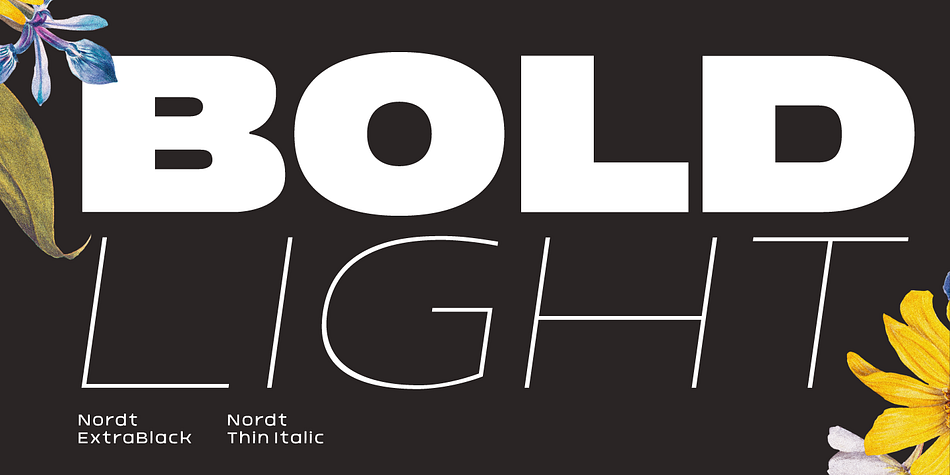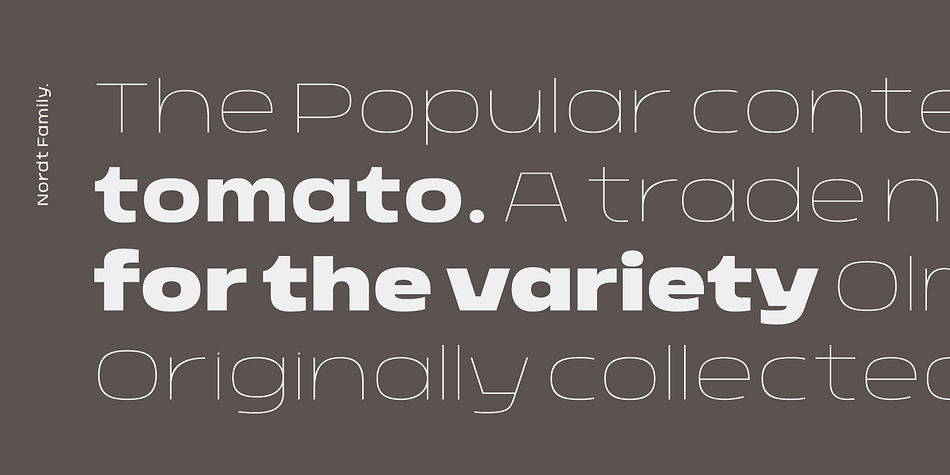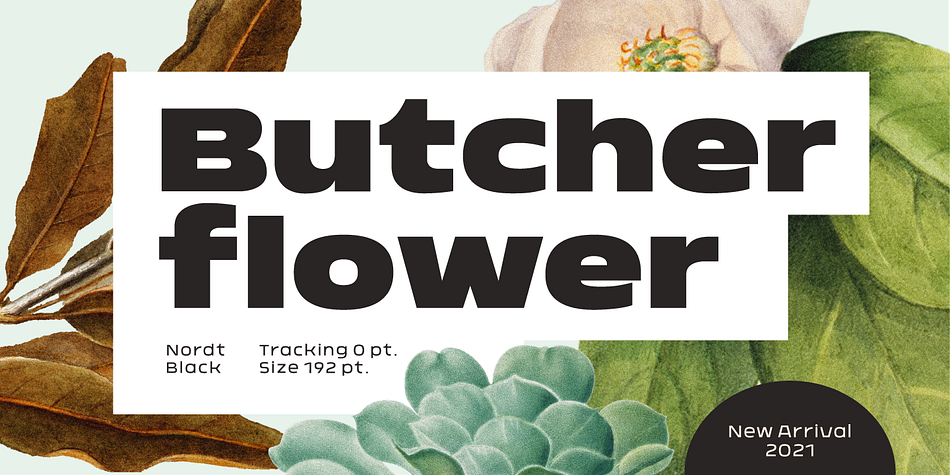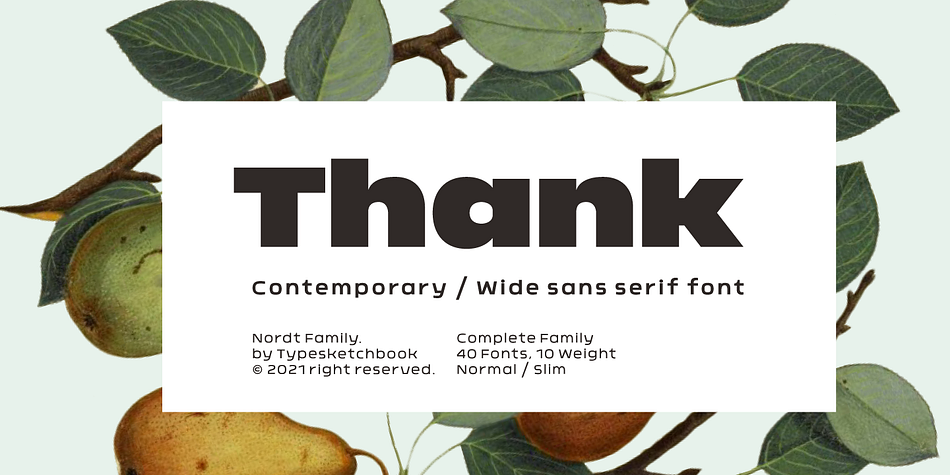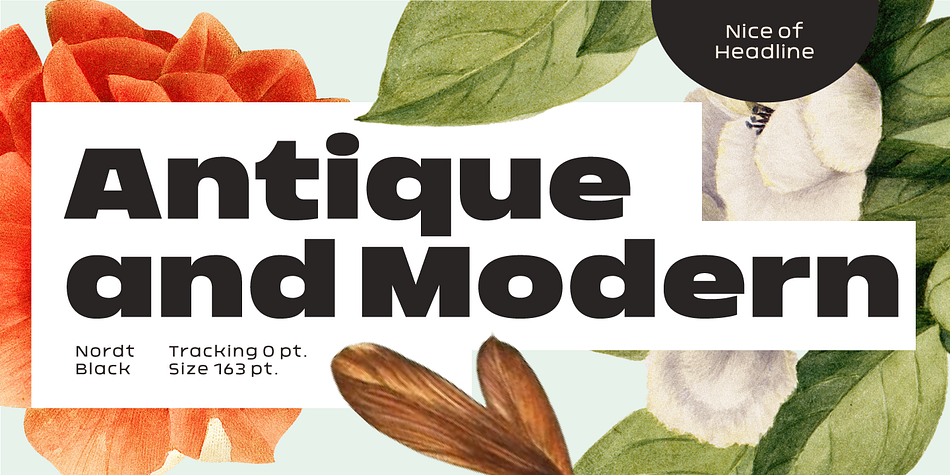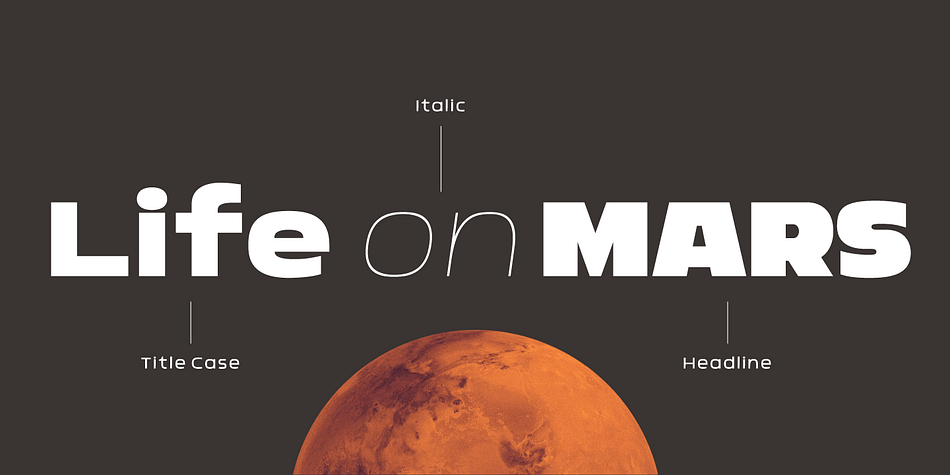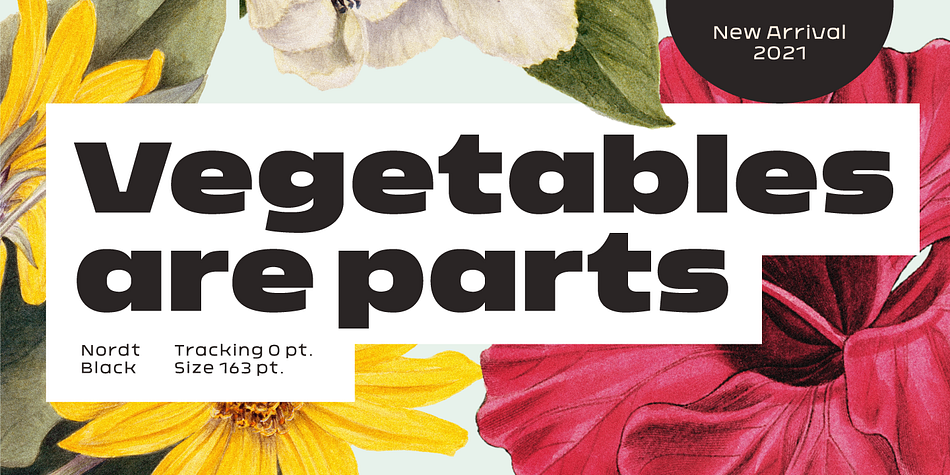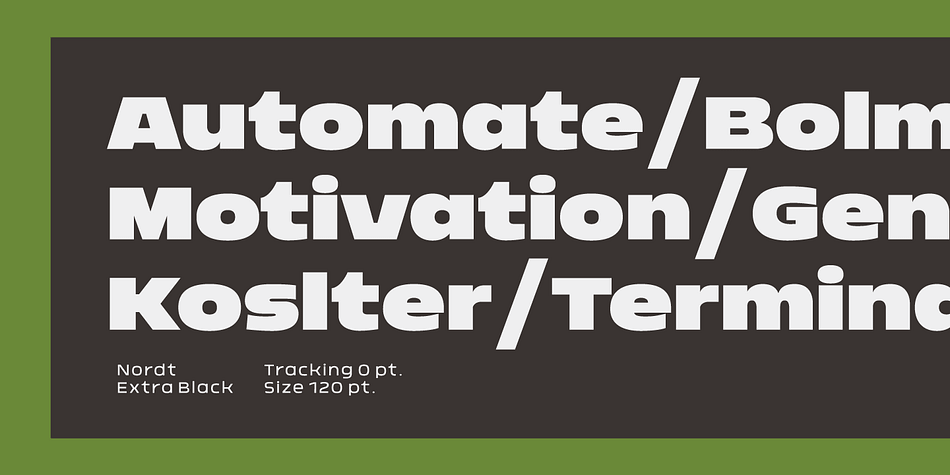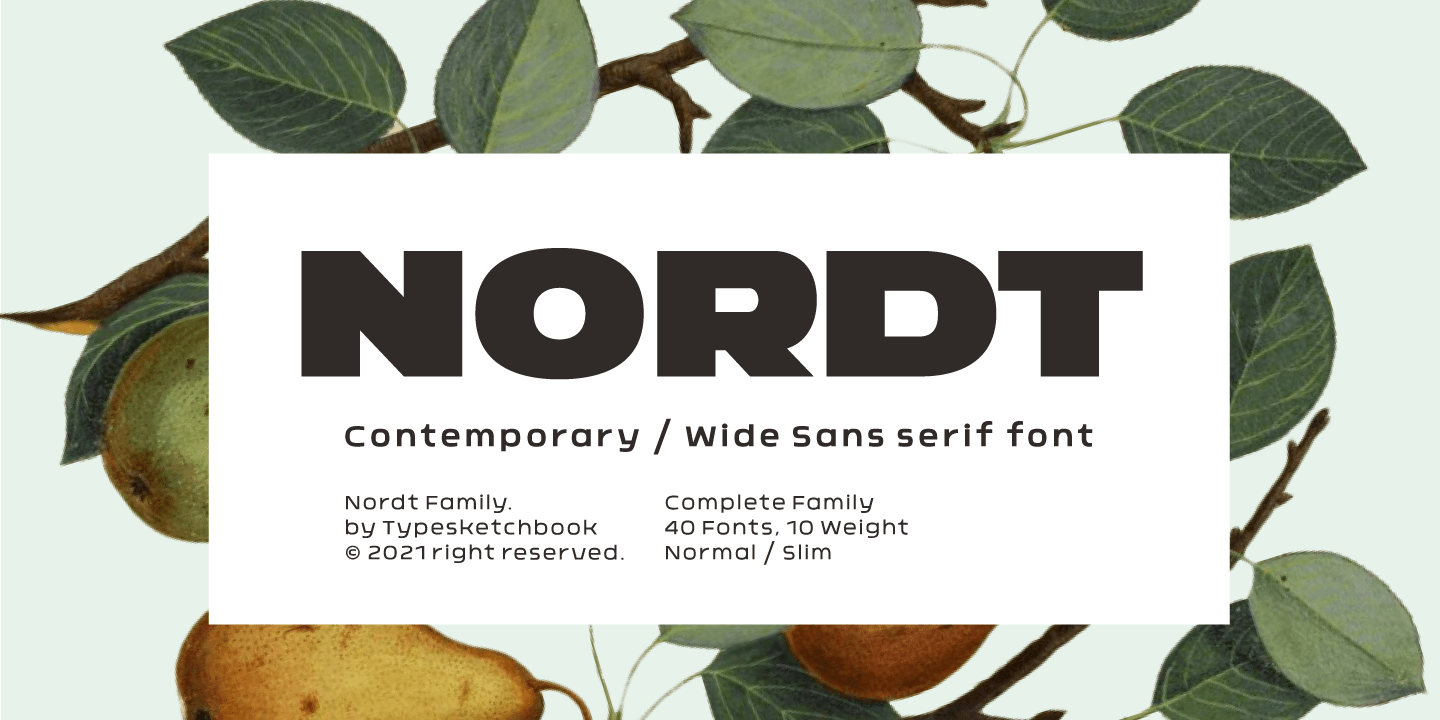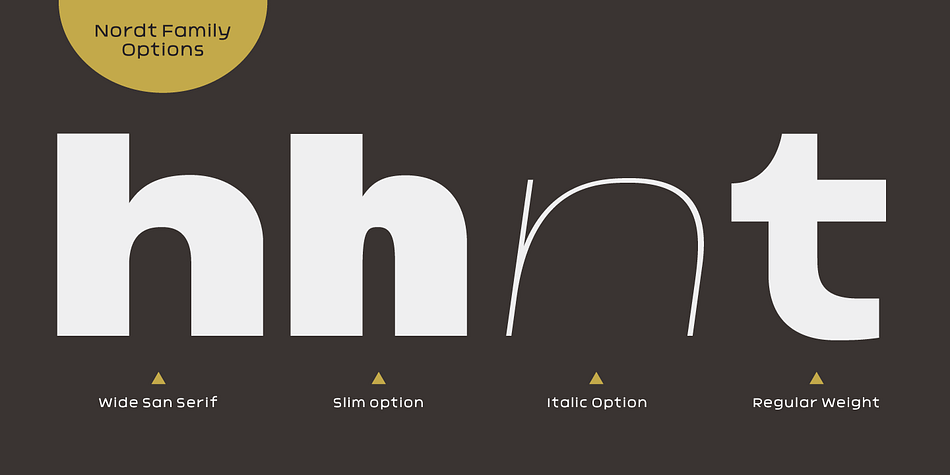
Nordt
Designed by Chatnarong Jingsuphatada, Nordt is a display sans font family. This typeface has forty styles and was published by Typesketchbook.
Nordt is a wide sans serif typeface made up of 40 fonts across 10 weights with normal and slim options. It’s a unique and modern sans typeface, which is well suited for a variety of typographic applications such as headlines and small texts. The Nordt font family supports multiple languages and is available as both webfont and desktop font.